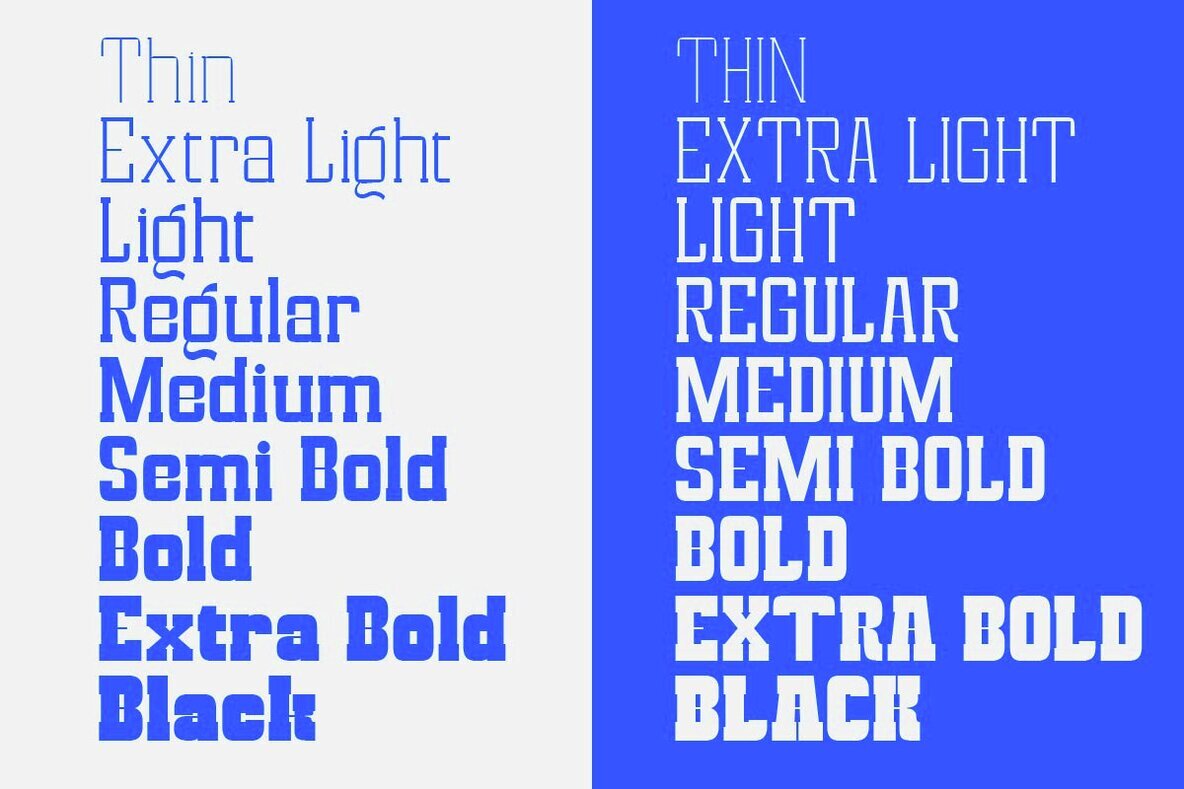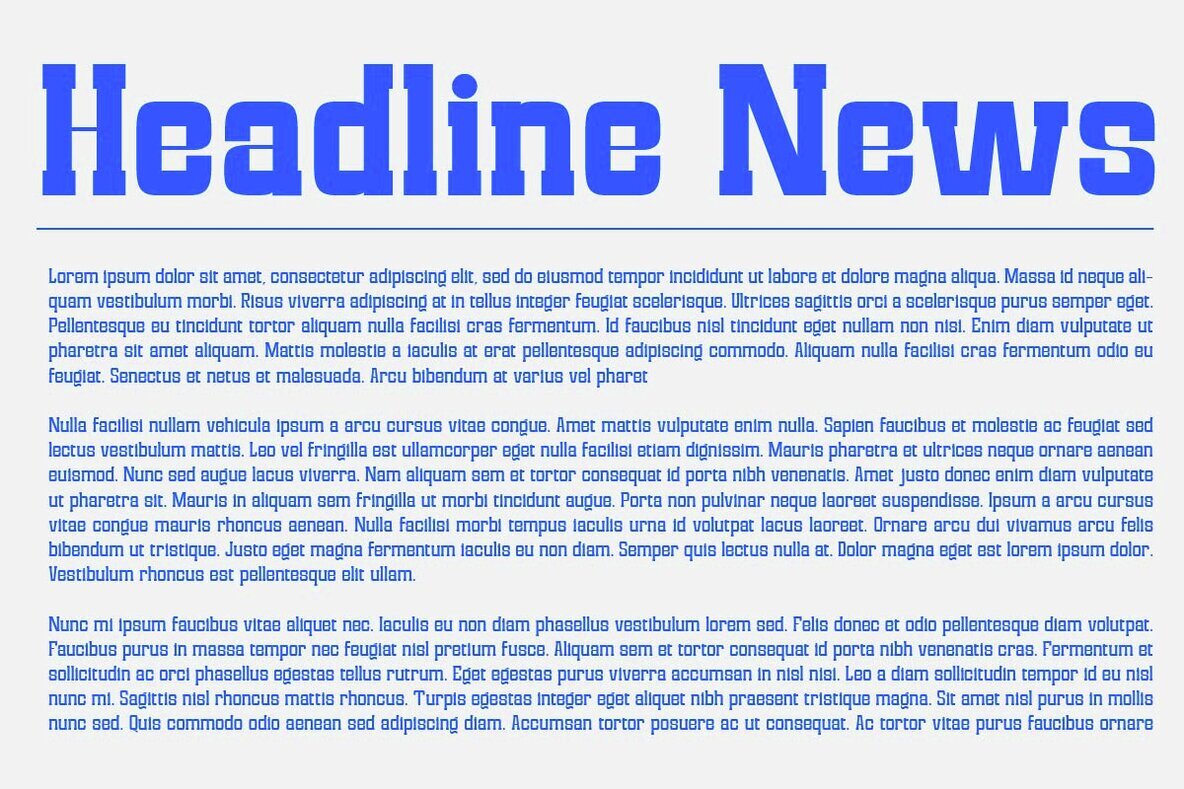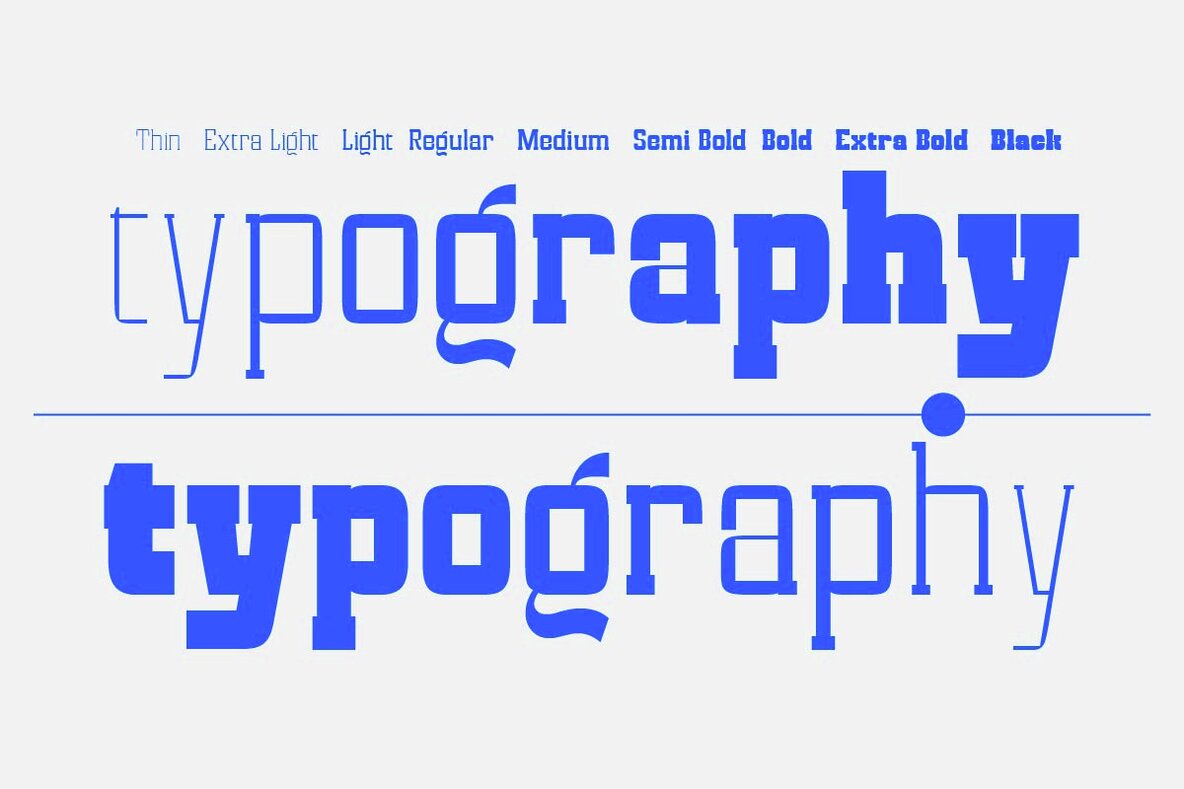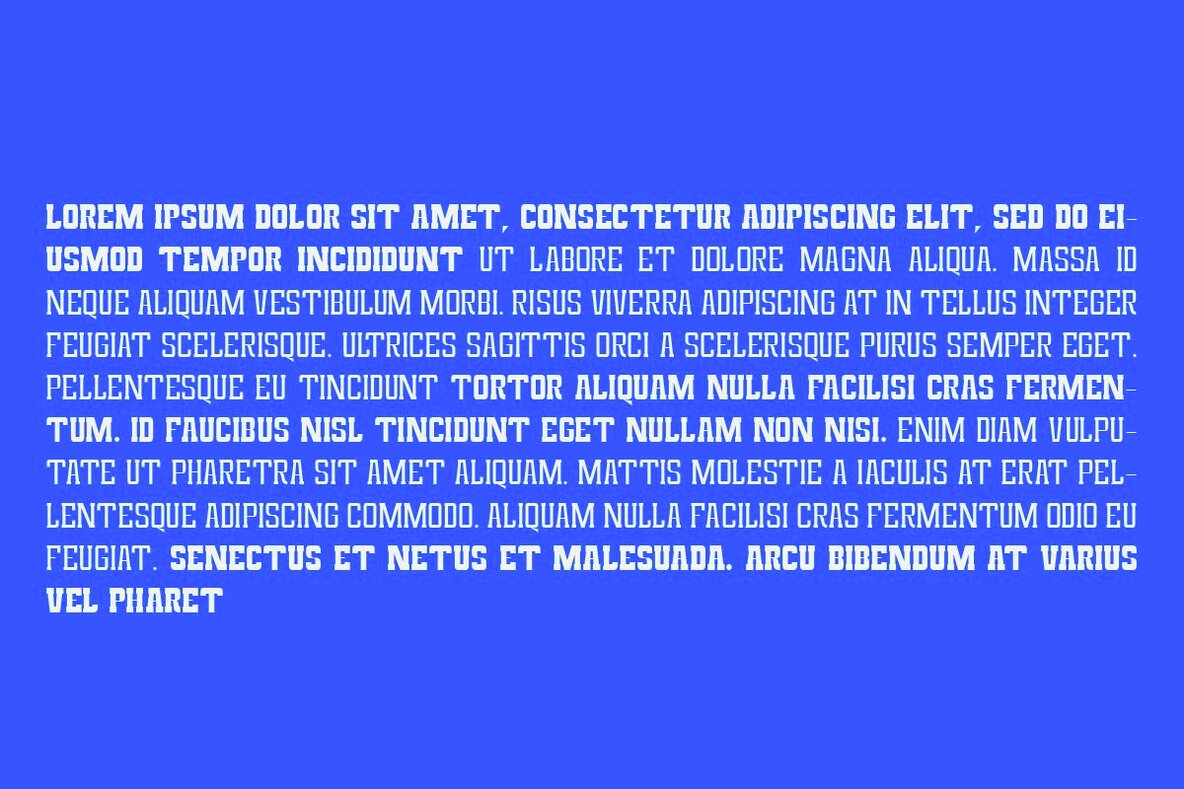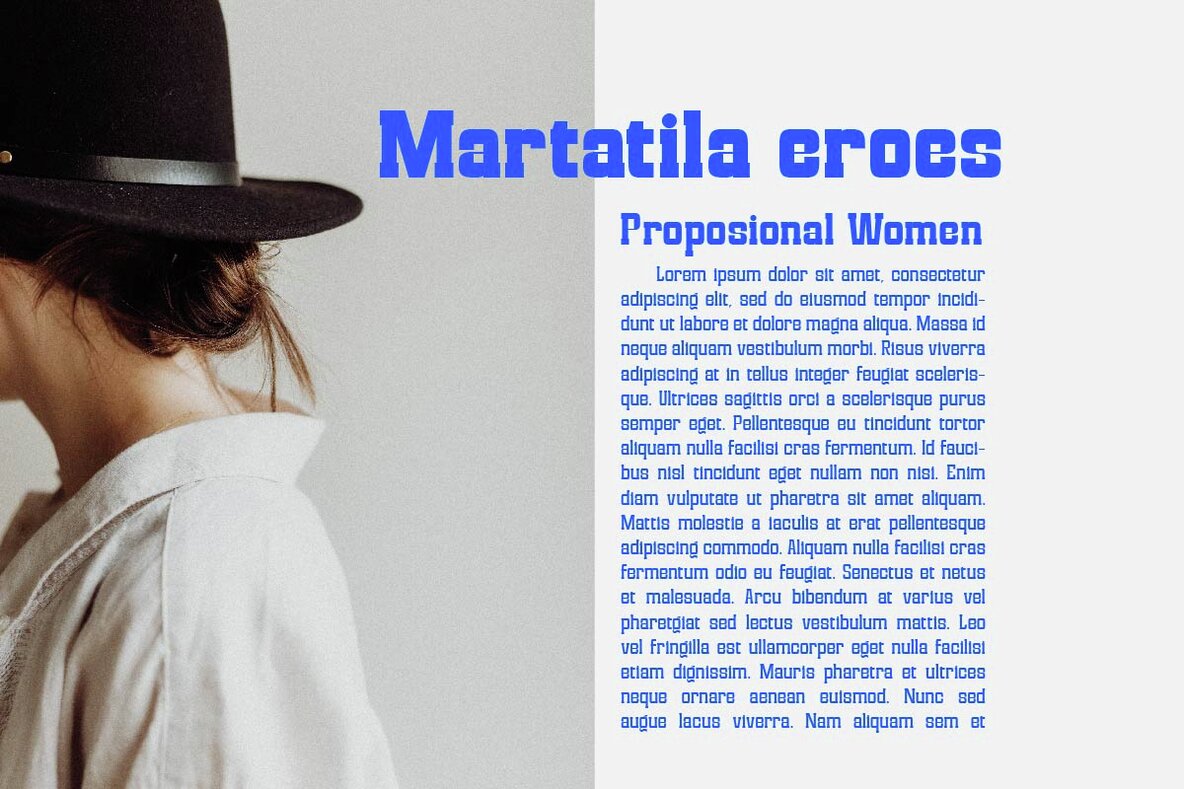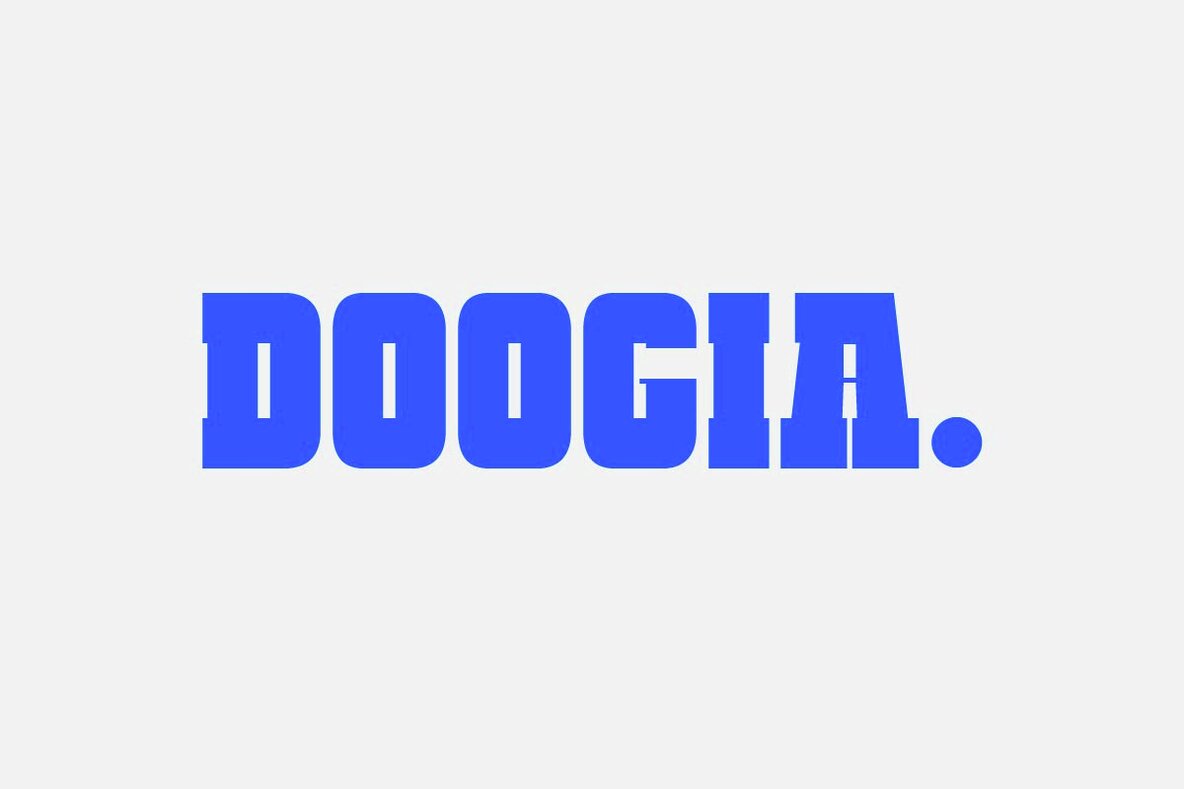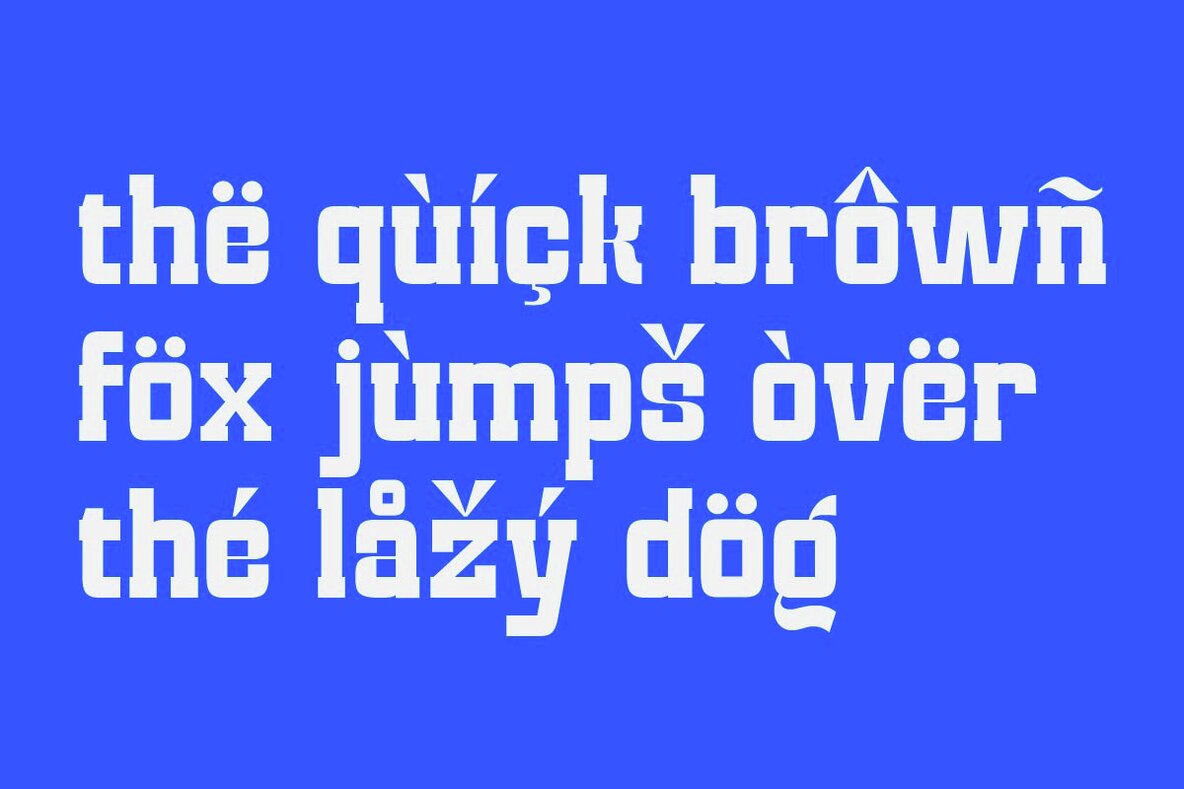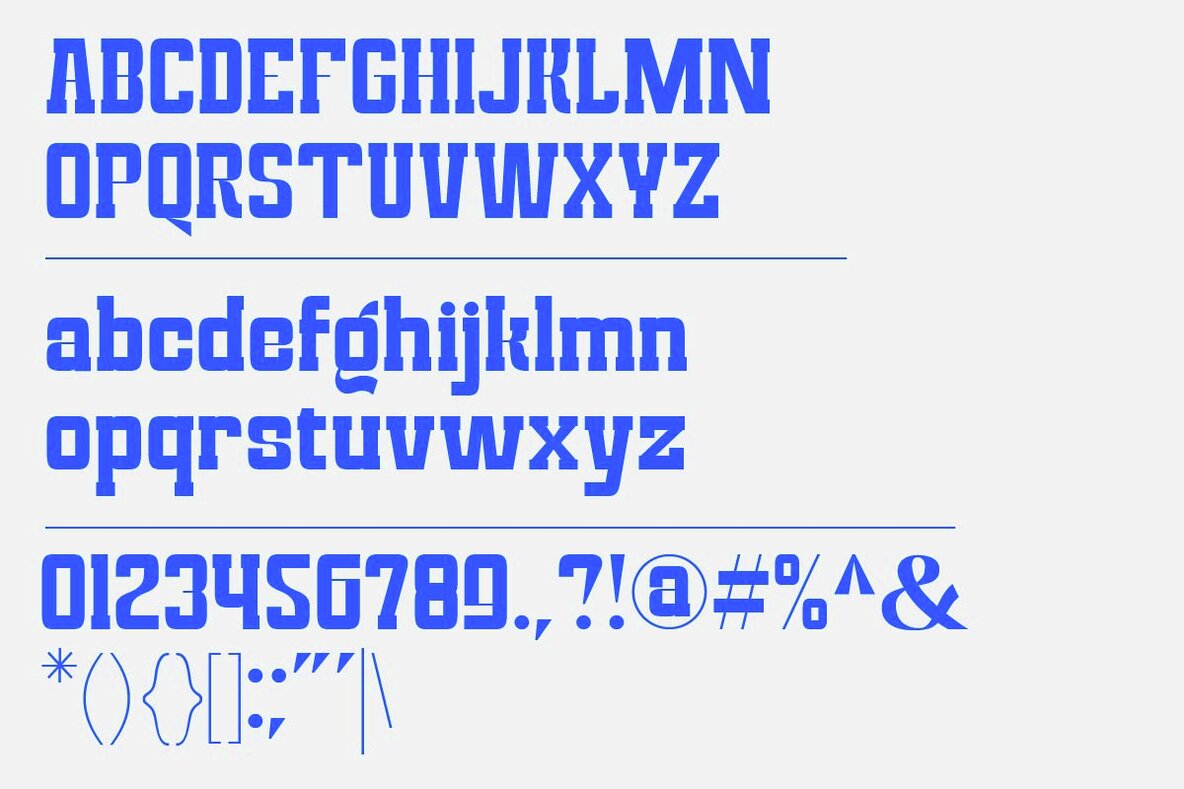
Magefin Font
Magefin is a unique, modern serif font family designed by Muksal Creative. Featuring nine distinct styles from a slender Thin to a robust Black, this typeface offers remarkable versatility. Ideal for use in magazines, posters, branding projects, and websites, Magefin combines elegance and functionality seamlessly.Magefin: Modern and Versatile Serif Font Family